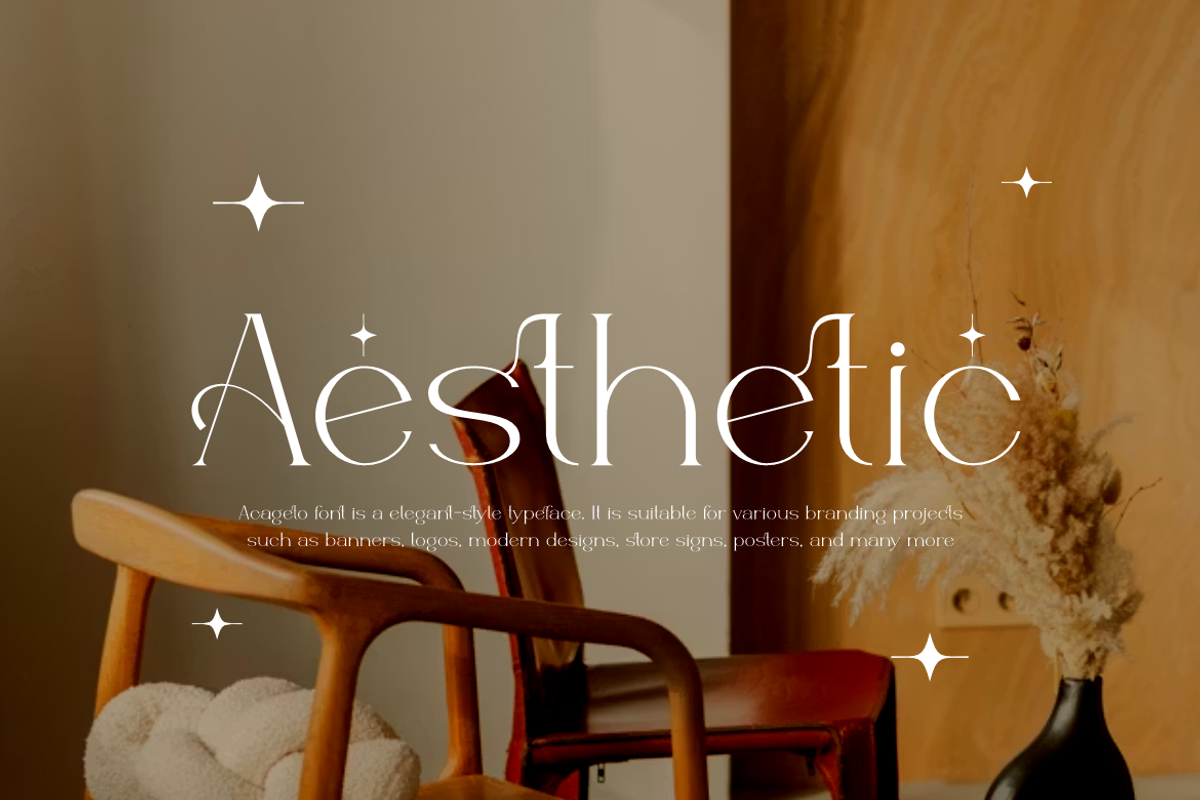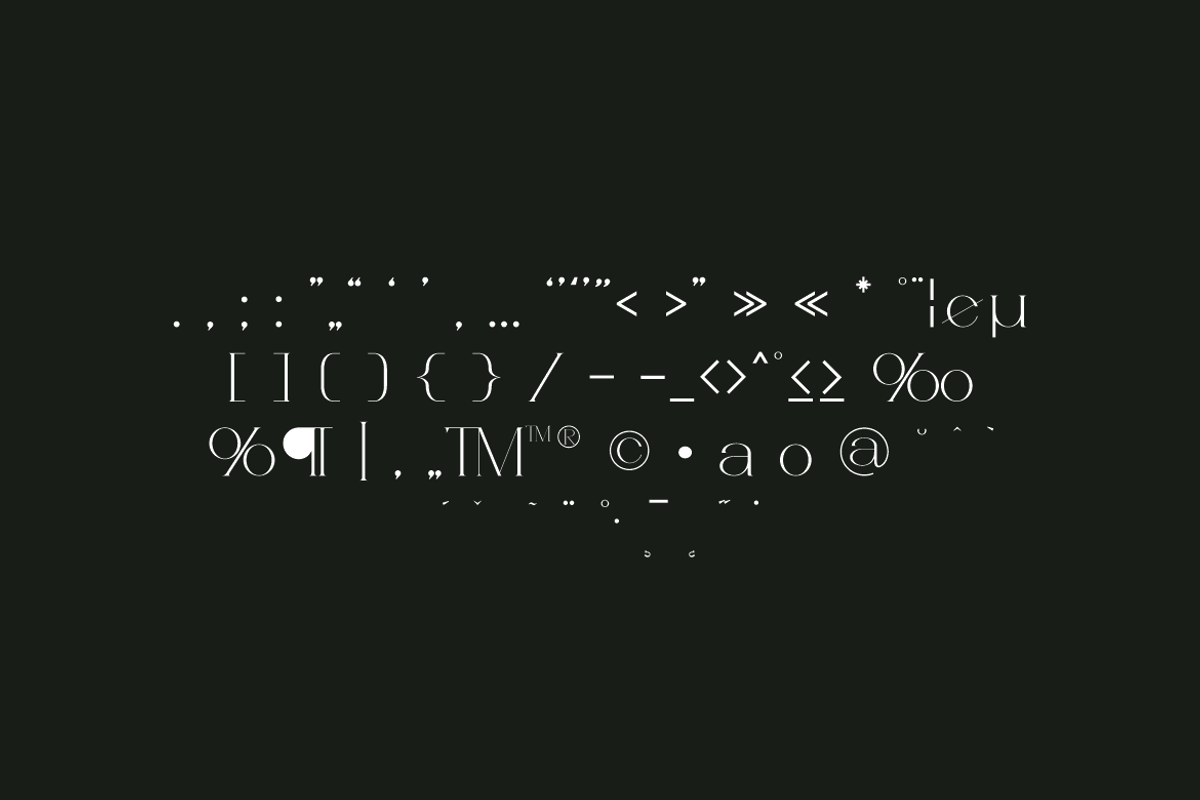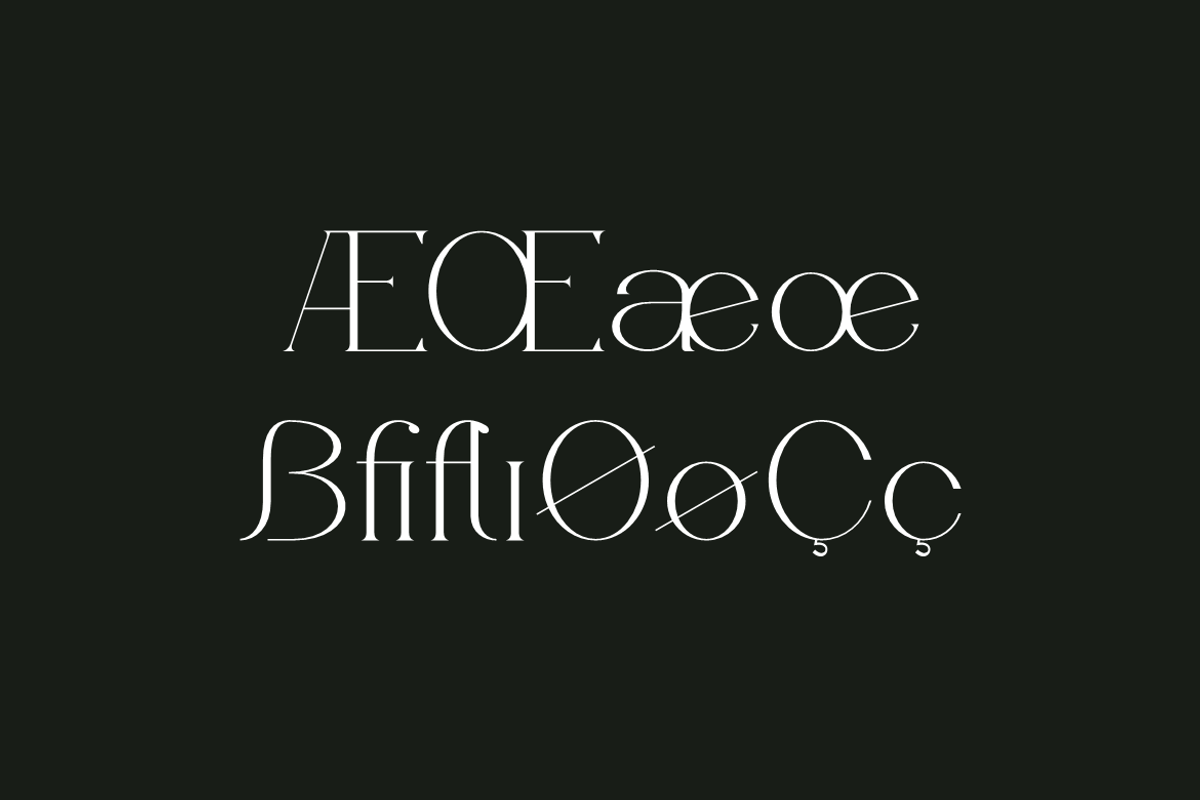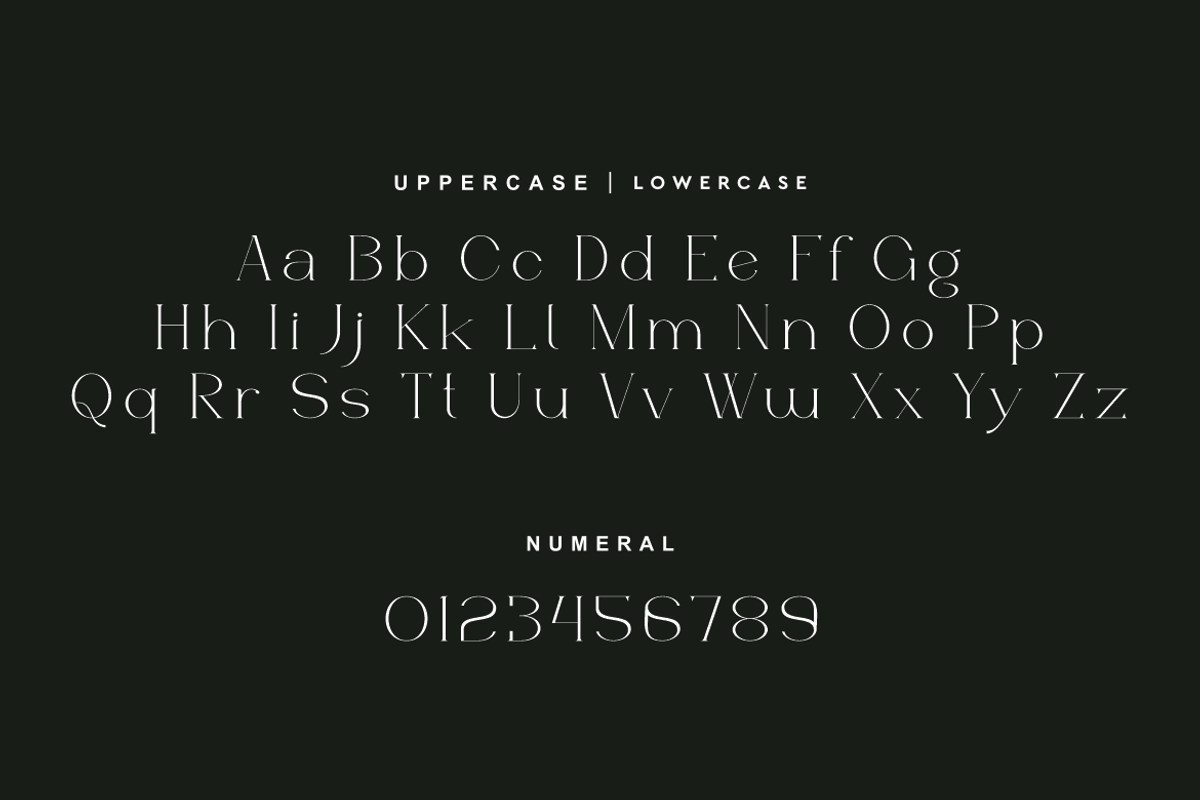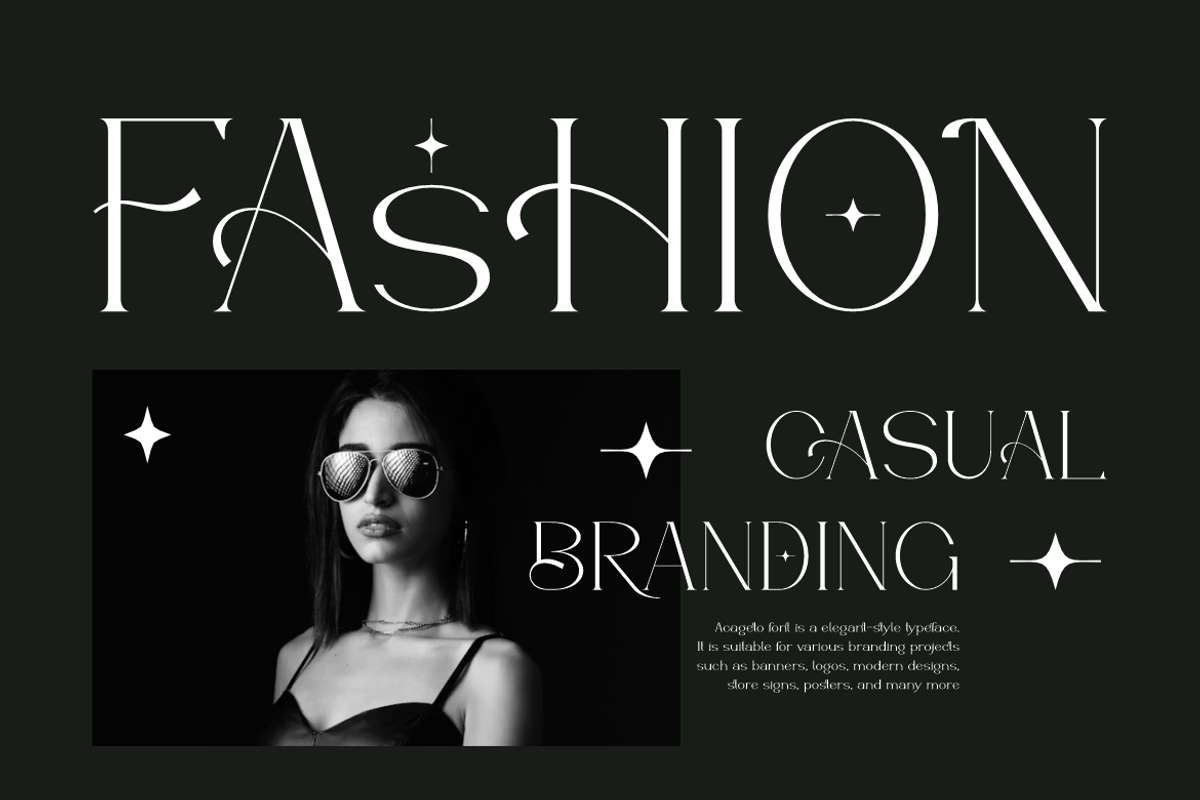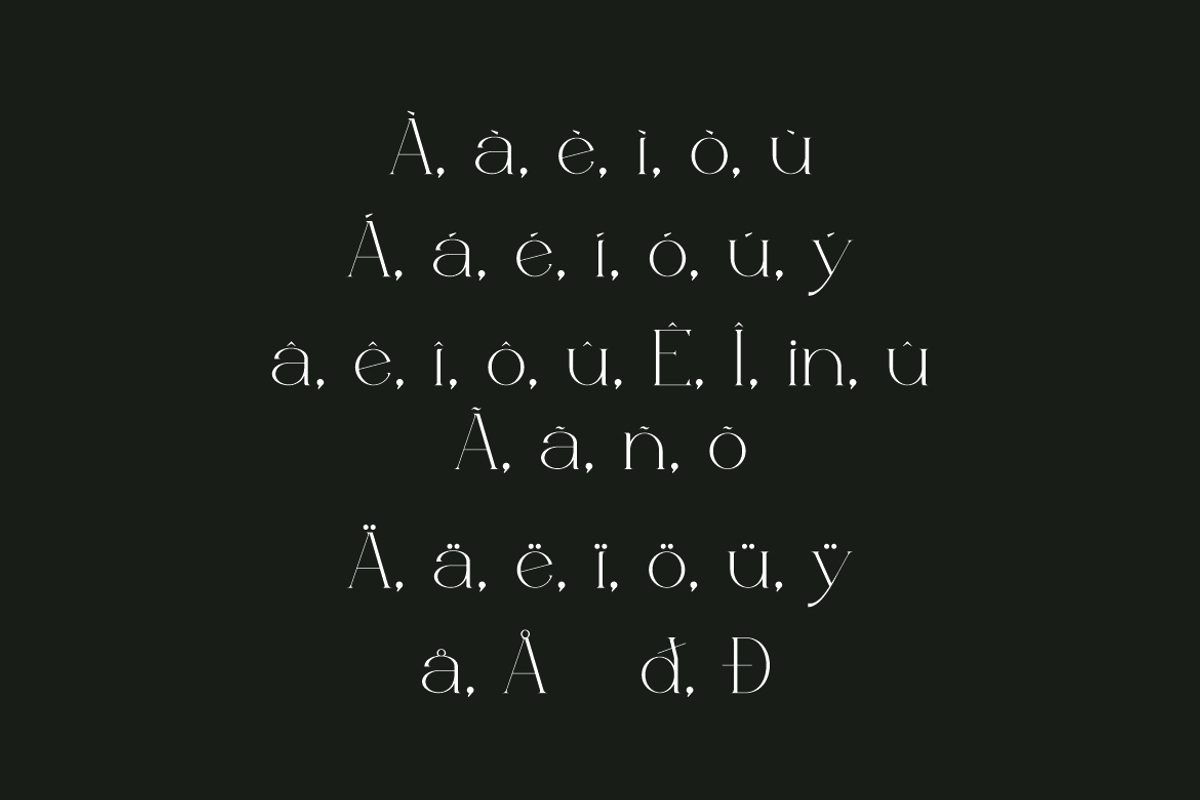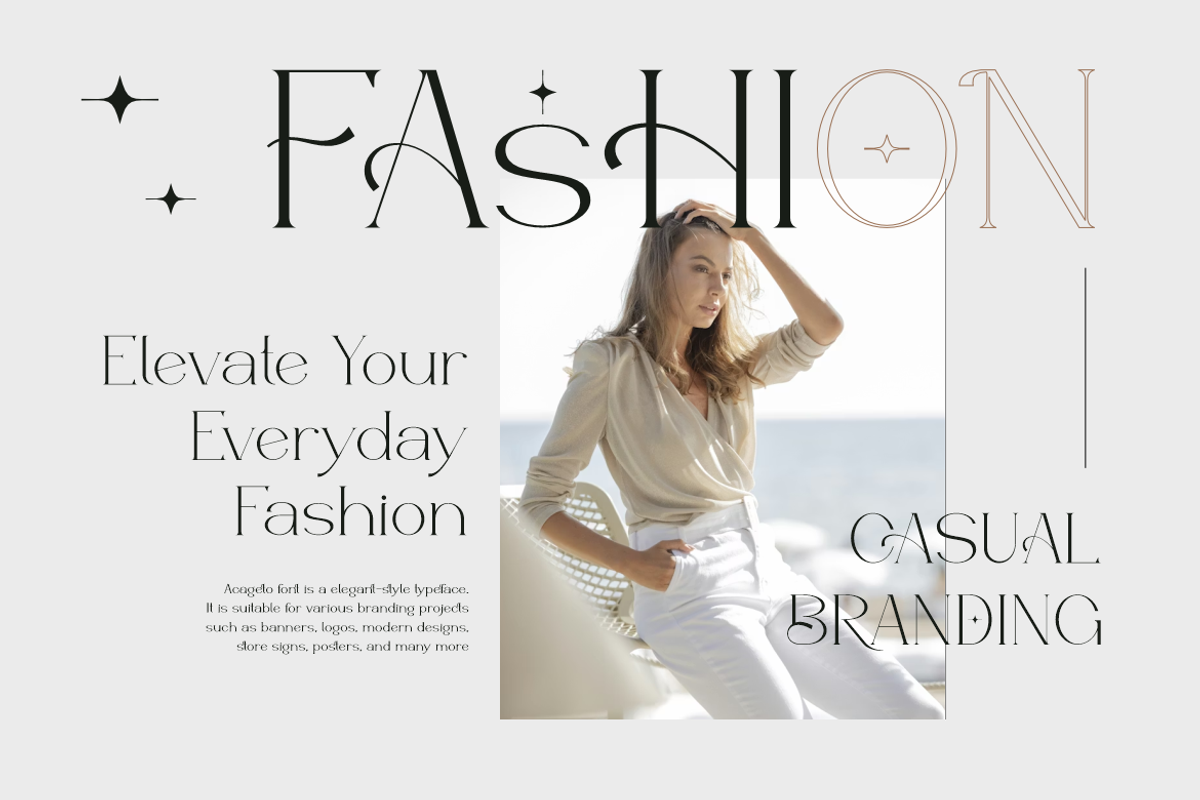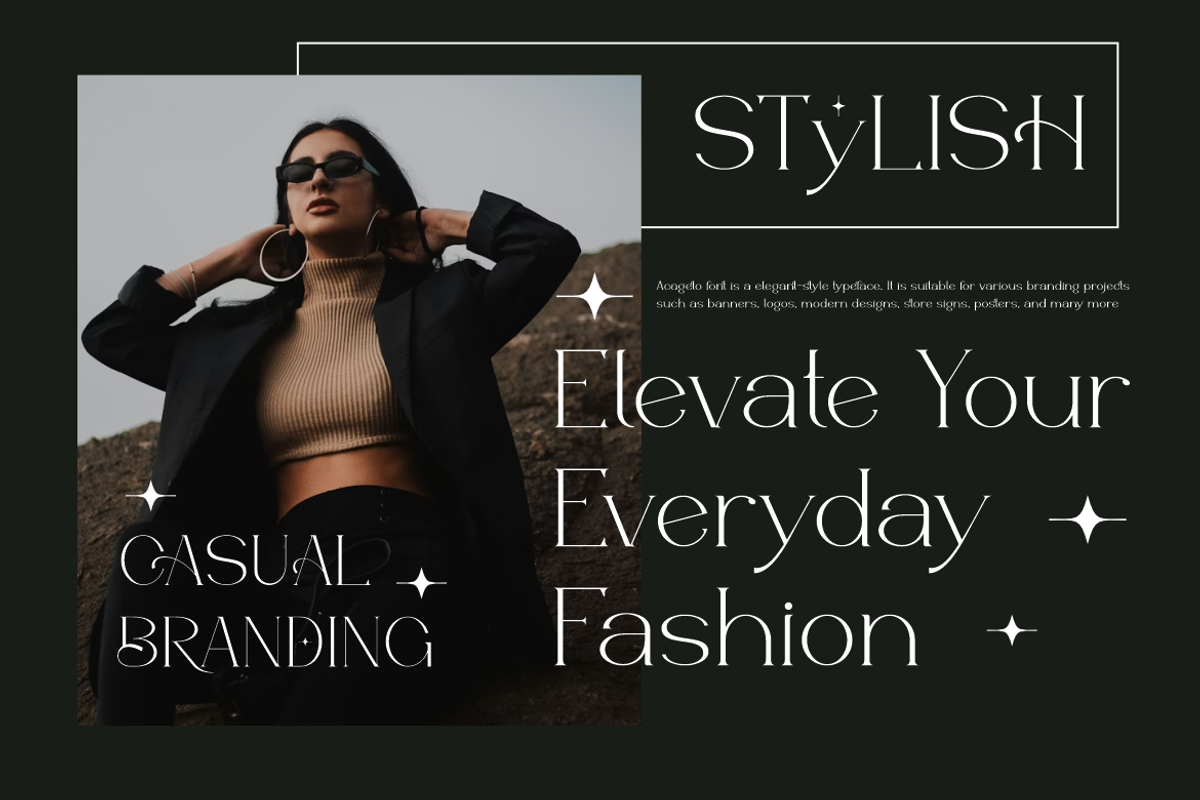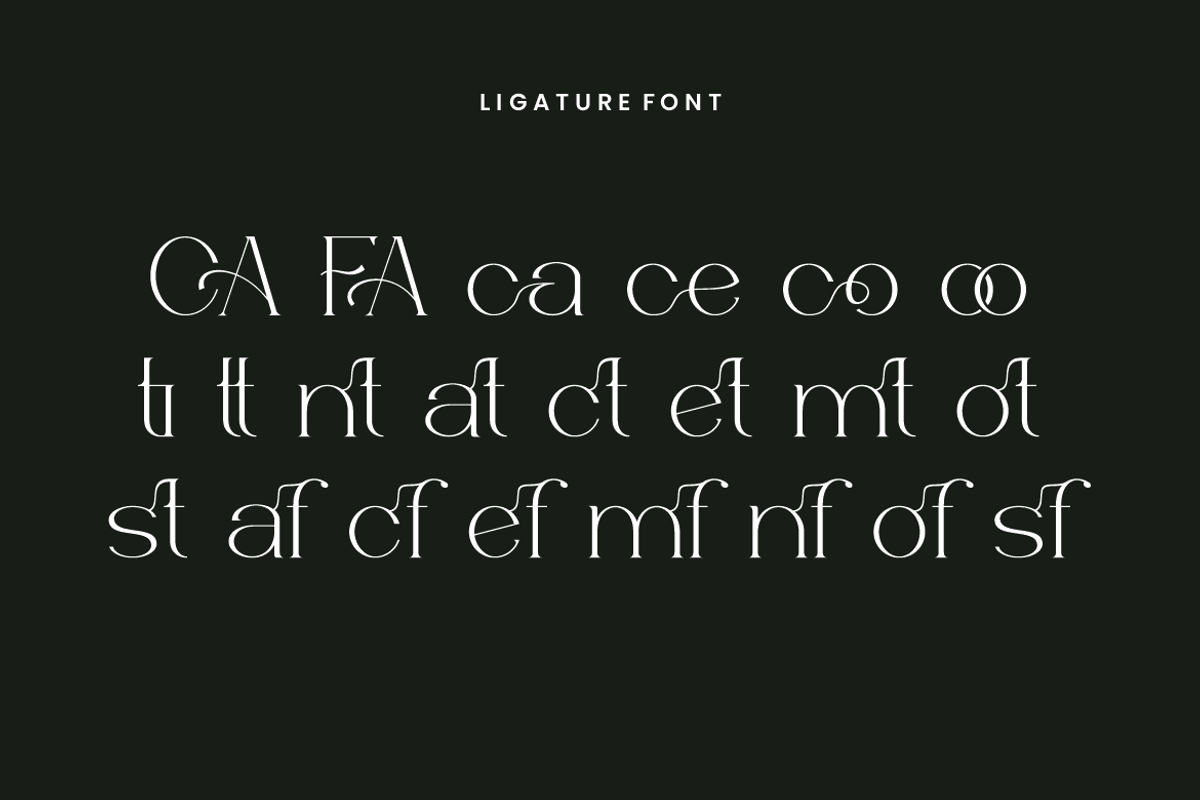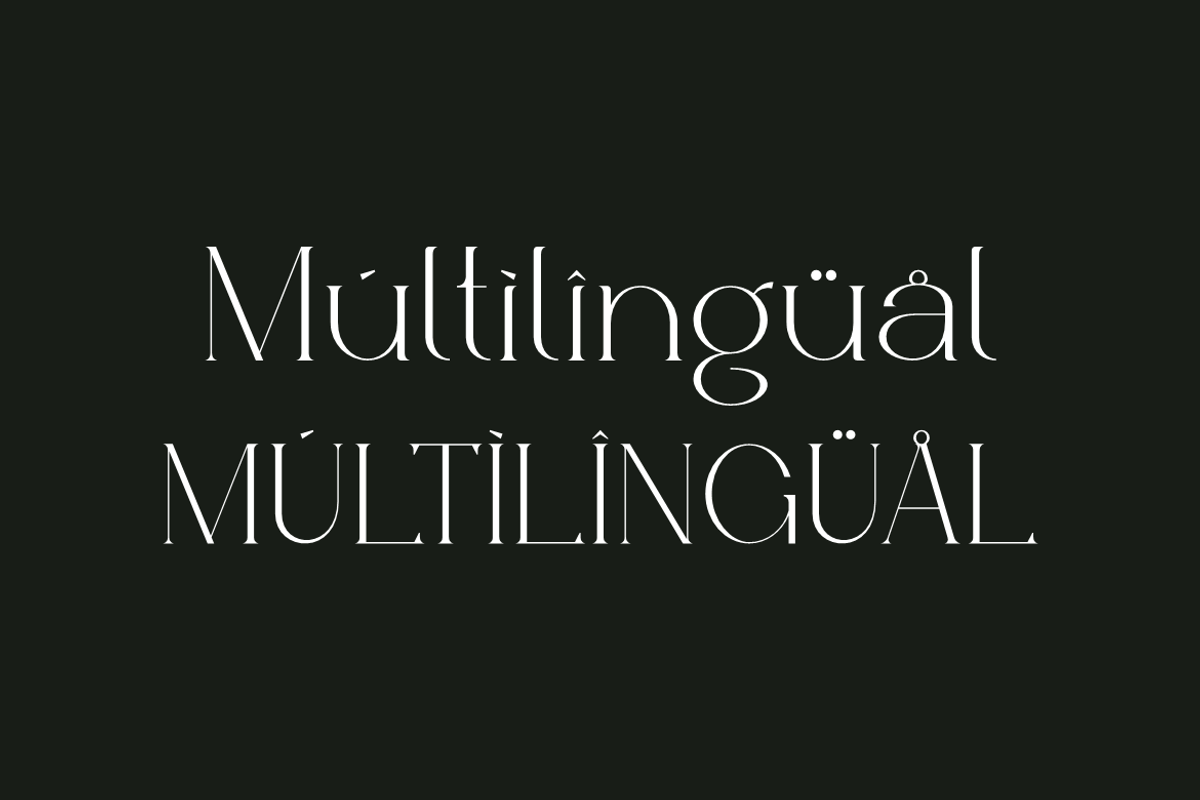
Acageto - Modern Luxury Font
Acageto Font is a serif and authentic display typeface. It’s perfect for various branding projects such as logos, modern designs, and more. This font stands out beautifully in a wide range of contexts.